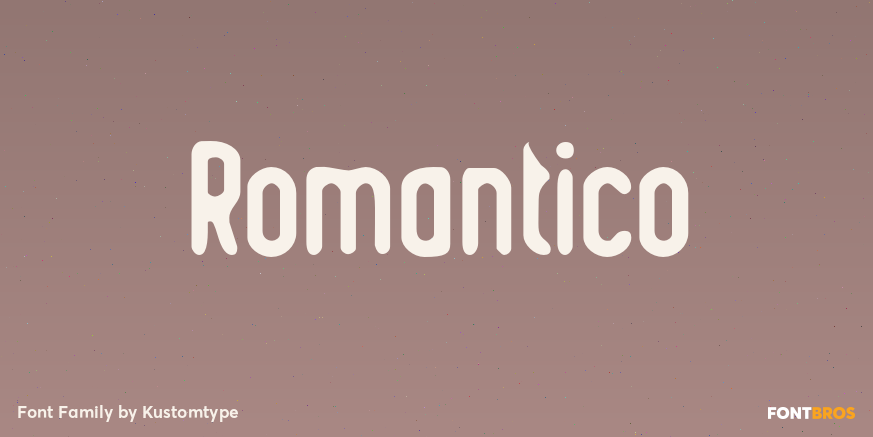
Romantico
About Romantico
Kustomtype\’s ?Romantico? font is a sans serif font family with a regular & oblique version. It contains all upper & lower cases. The ?Romantico? family is coordinated into letterforms, metrics, and weights to work better together. Why still looking…